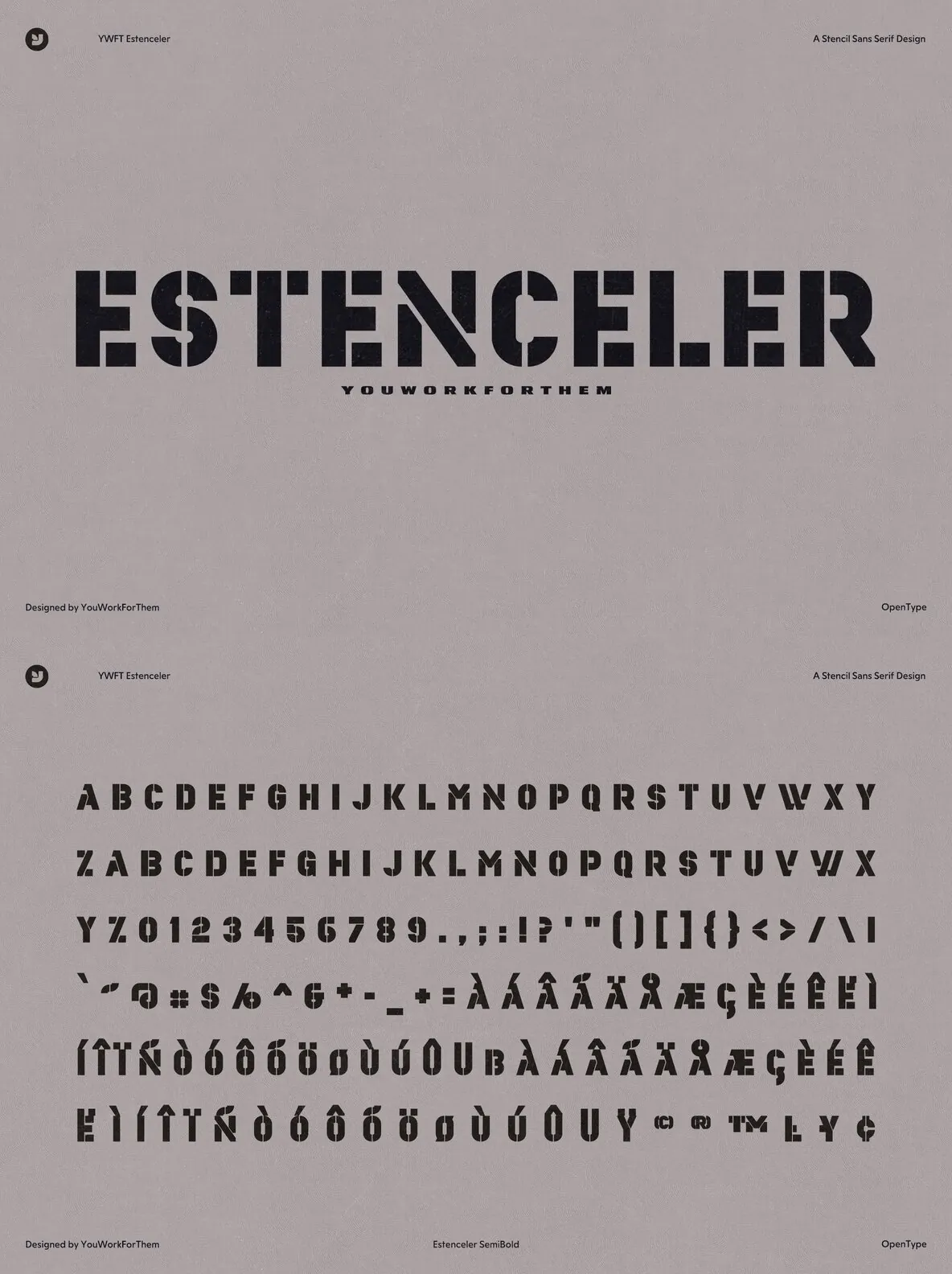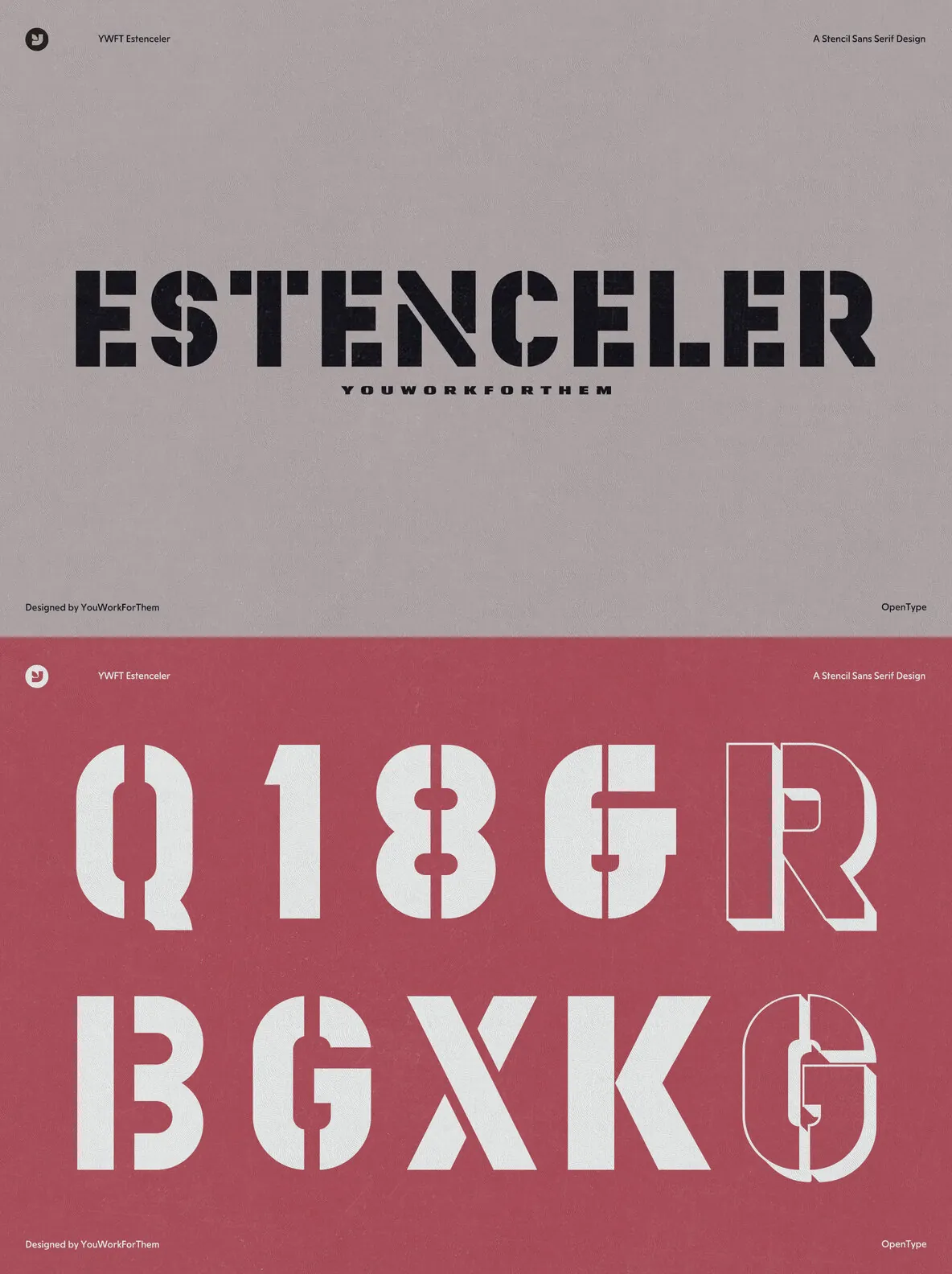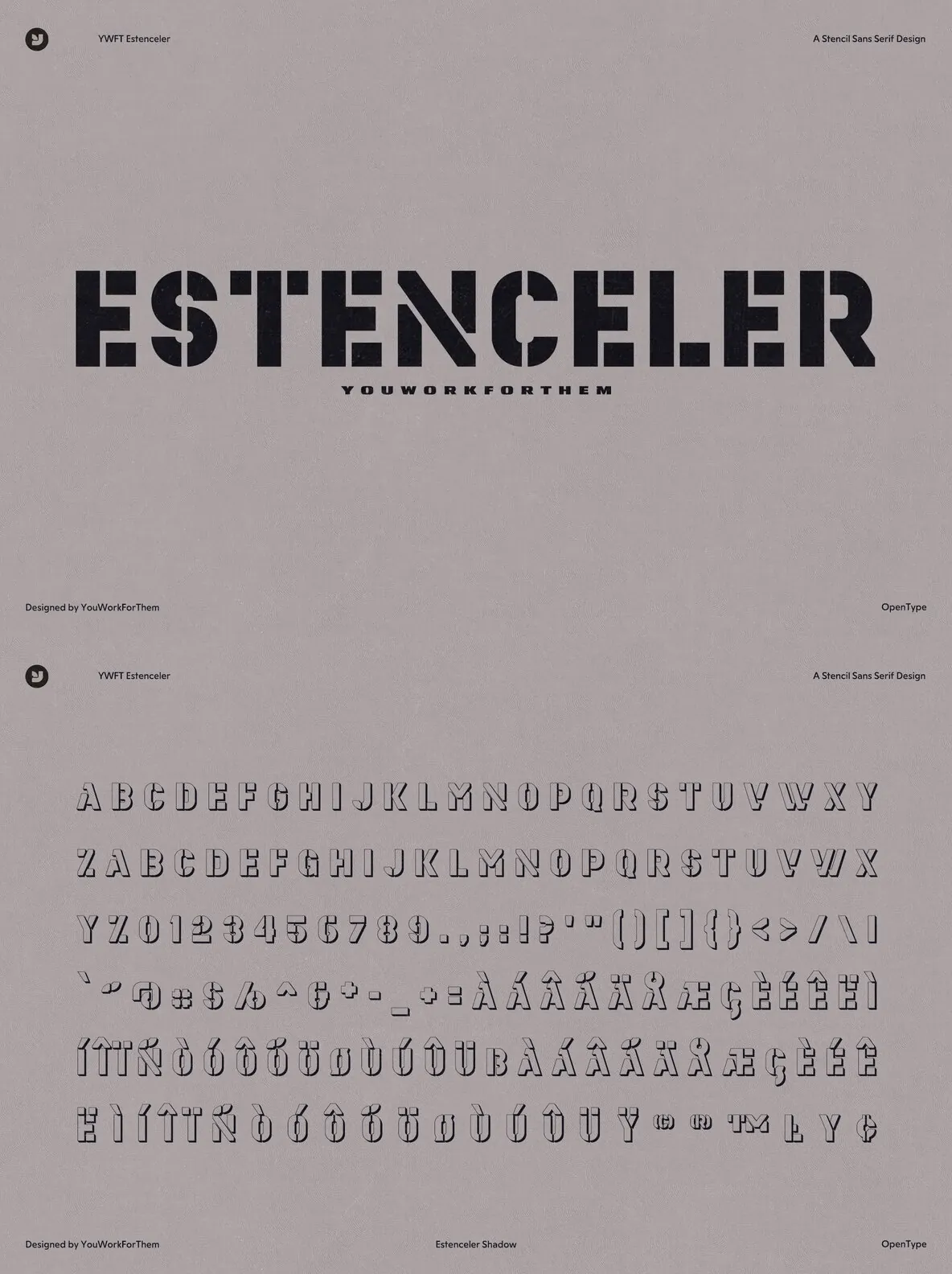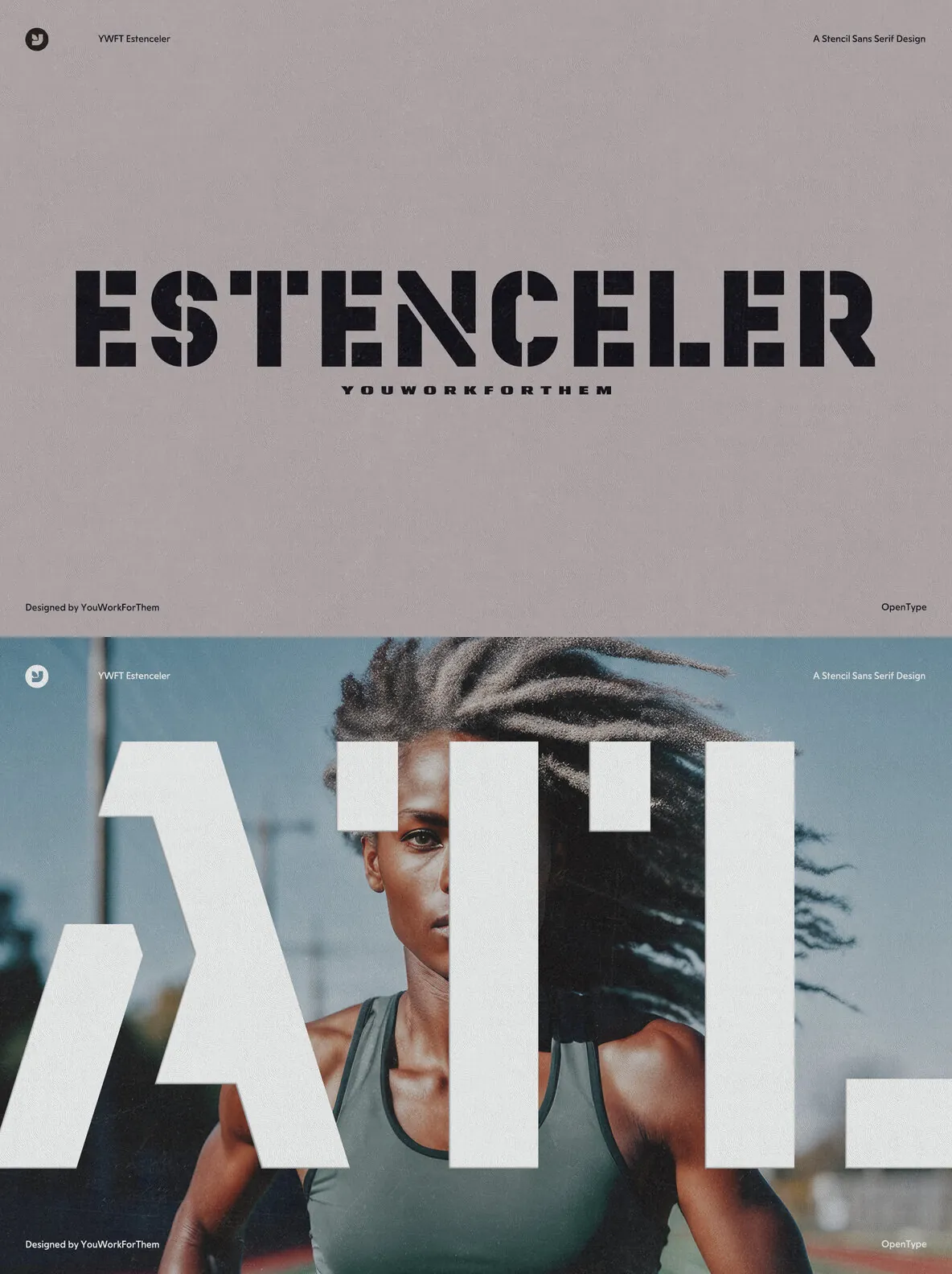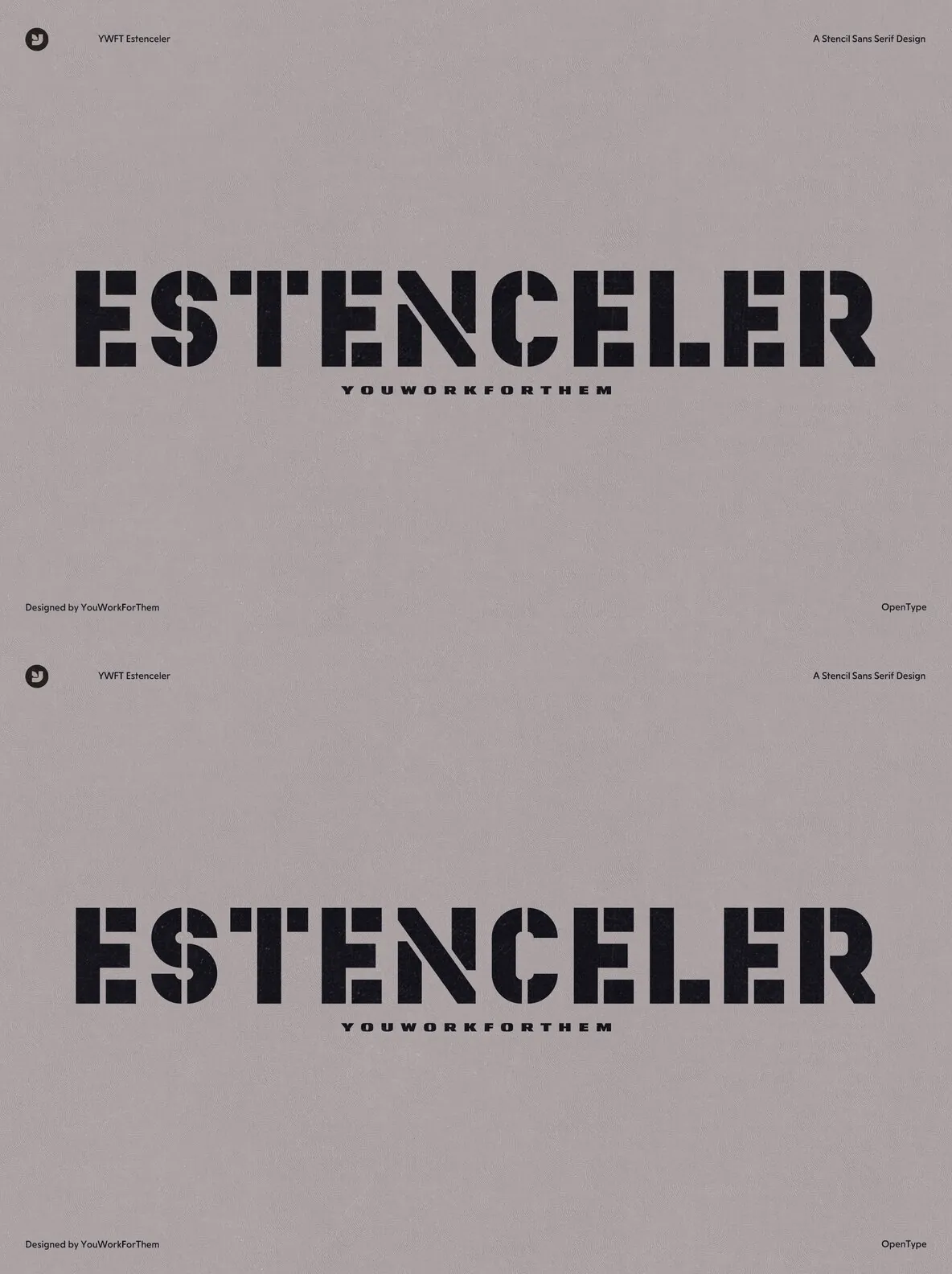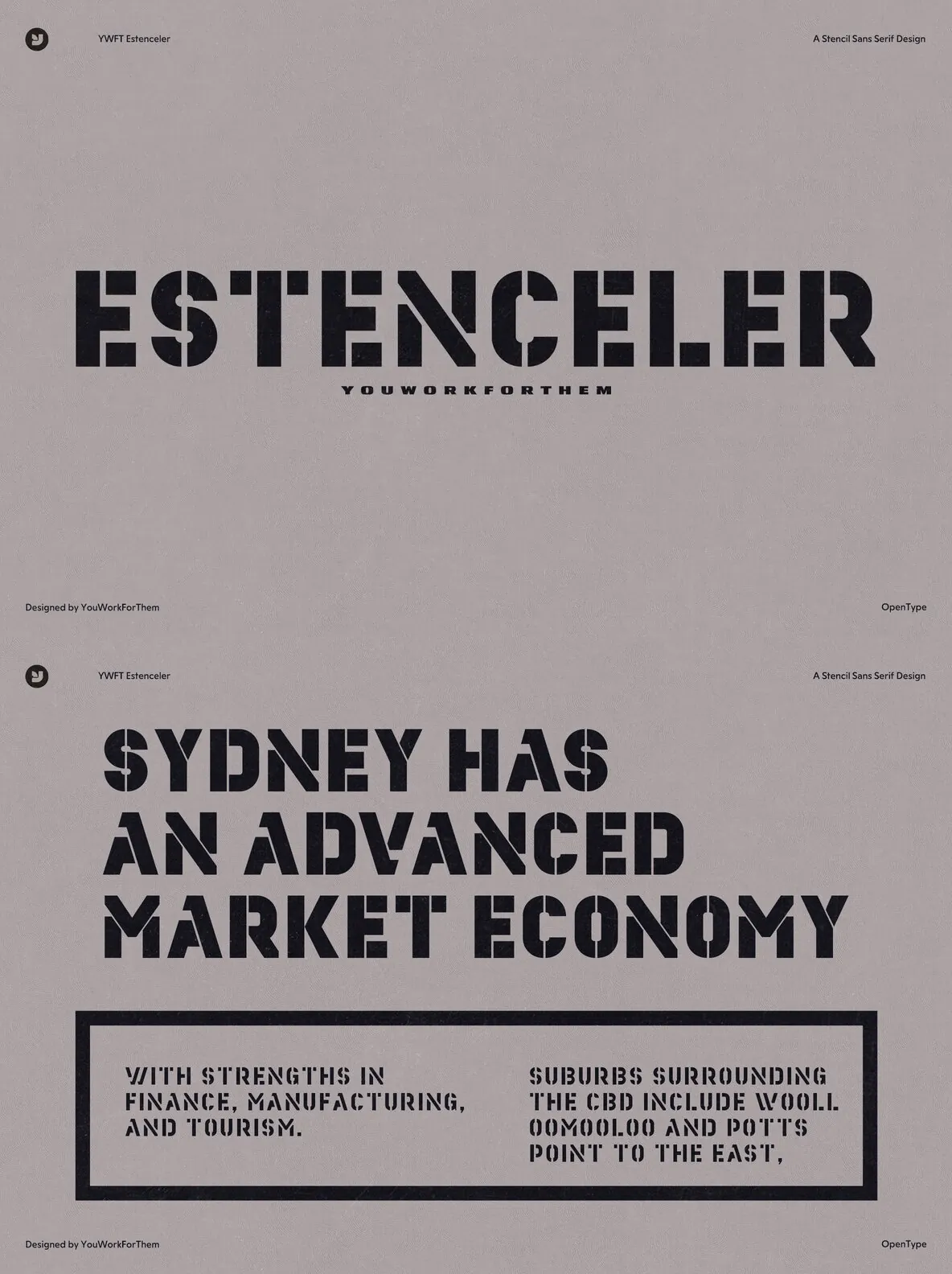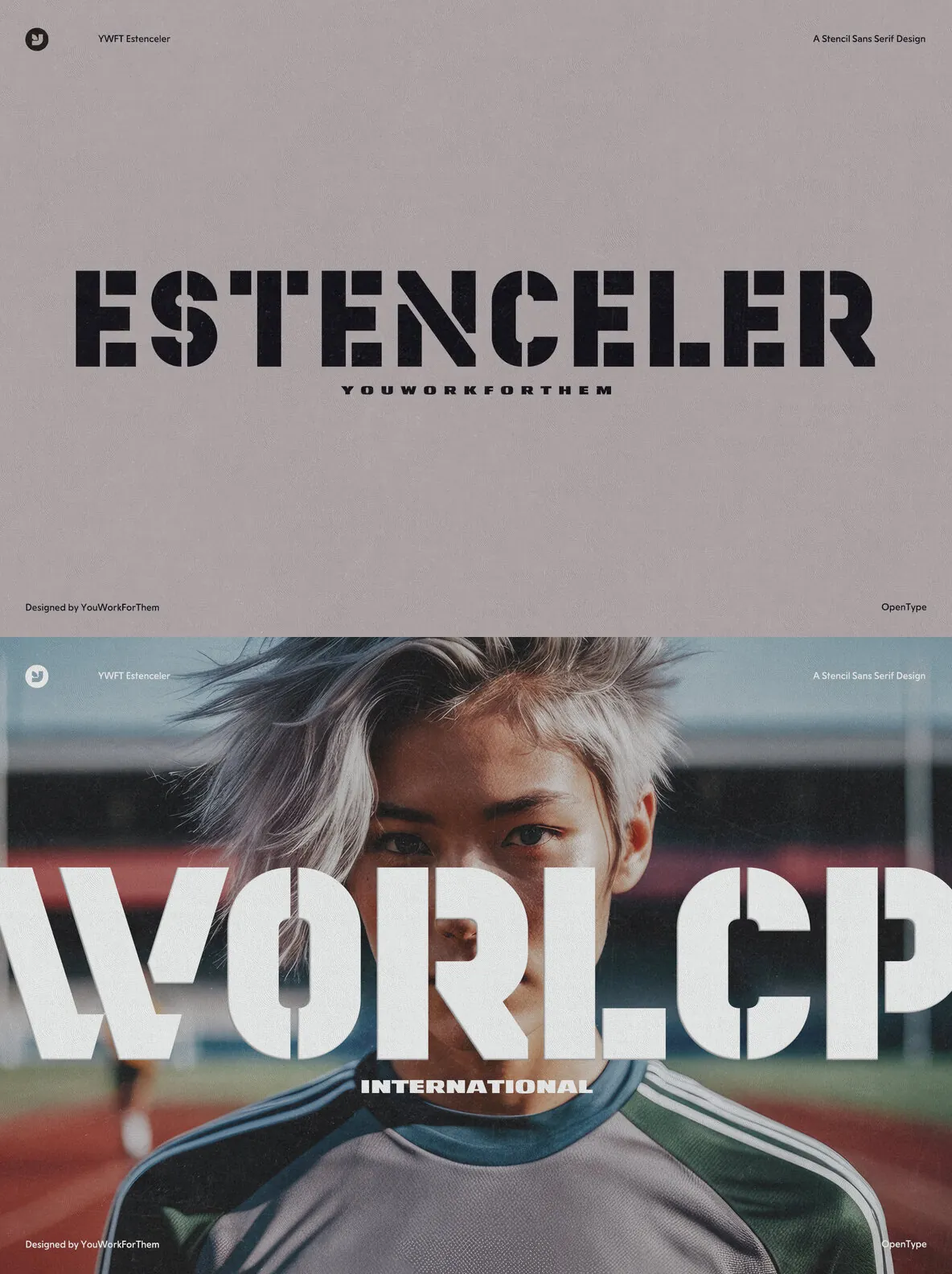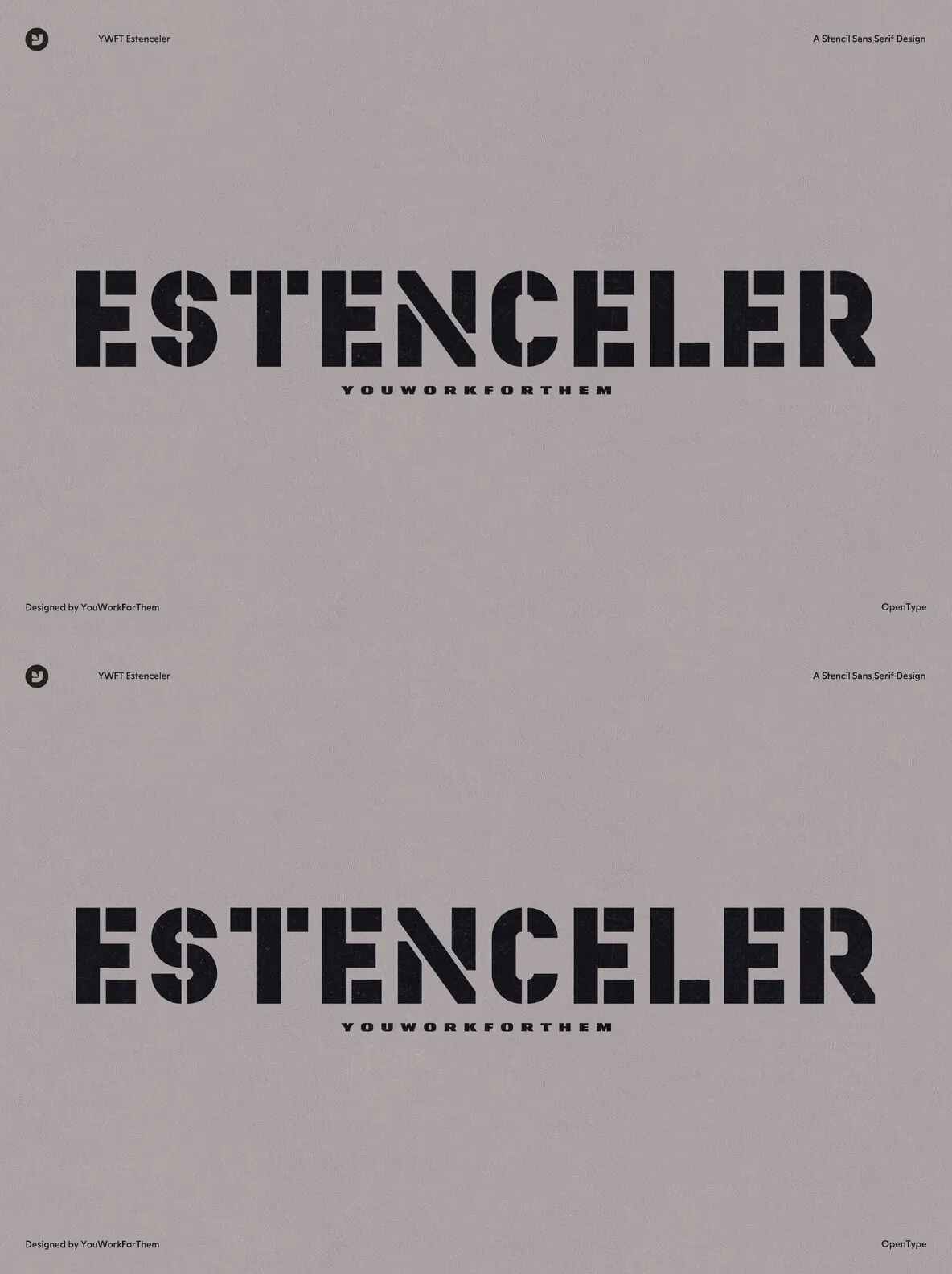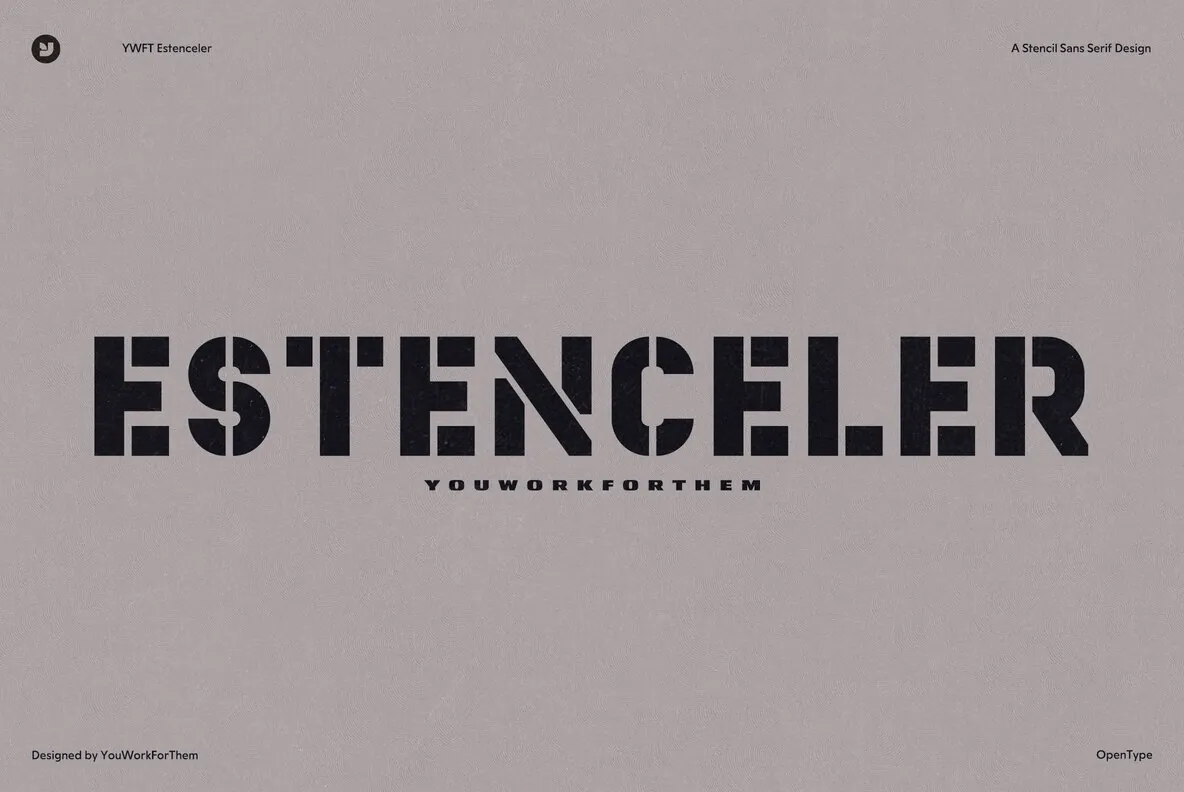
YWFT Estenceler – a typographic revelation by renowned design house YouWorkForThem. This revolutionary stencil typeface, conceived and birthed in the midst of diverse stencil lettering influences, presents the perfect marriage of the timeless and the modern. It skirts away from the usual femininity that characterizes stencil fonts, instead choosing to embody masculinity, robustness, and vitality while maintaining grace and class.
YWFT Estenceler is not just a stencil, it is a design tool. Built for graphic designers and their unique challenges, Estenceler was designed to inspire and empower. It’s a nod to the classic stencil design with a touch of contemporary nuance, making it delightfully versatile and essential for any graphic designer or marketing firm striving to stay ahead of the curve.
Noteworthy Features:
Unique, robust design that breathes new life into the classic stencil concept
Represents a perfect balance of traditional craftsmanship and modern design principles
Ideal for a wide range of uses, from logo design to advertising, thanks to its versatile nature
Created by renowned design house YouWorkForThem, delivering quality and credibility
Excellent choice for graphic designers and marketing firms looking for something distinct and assertive